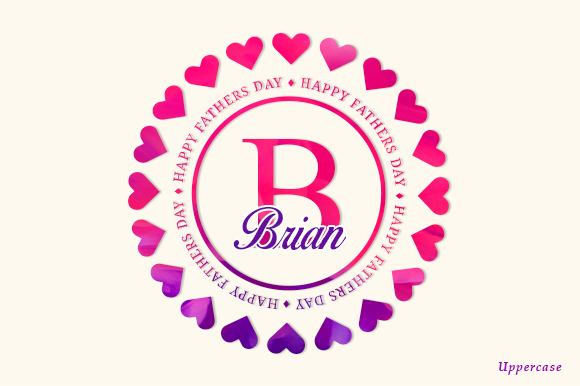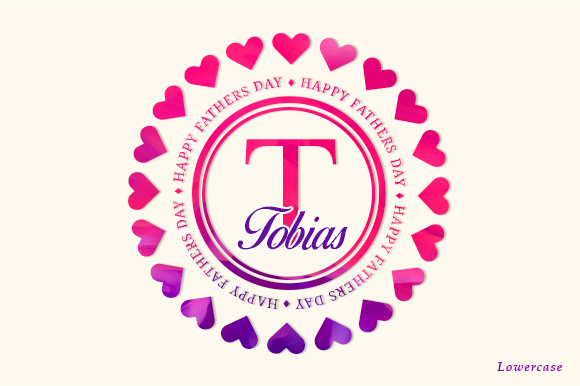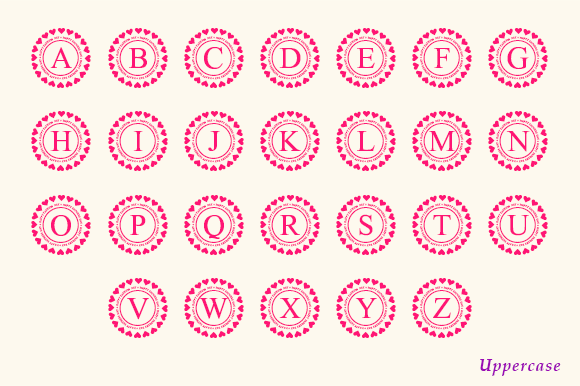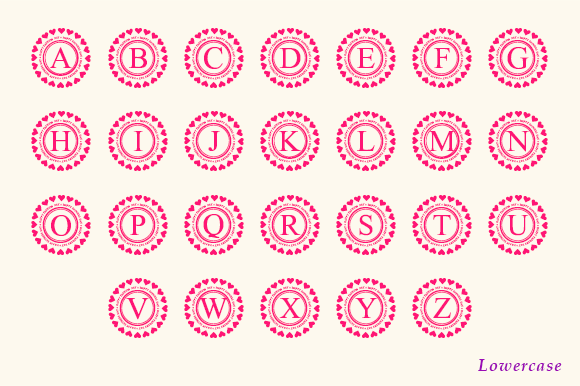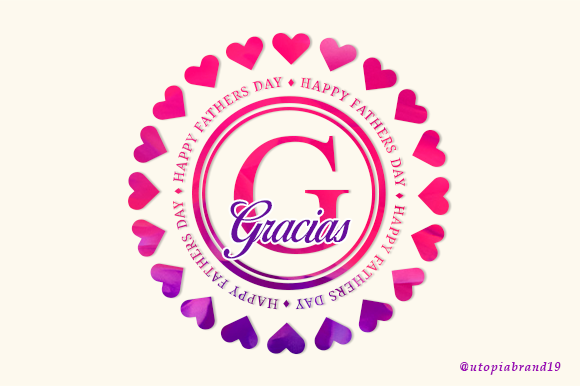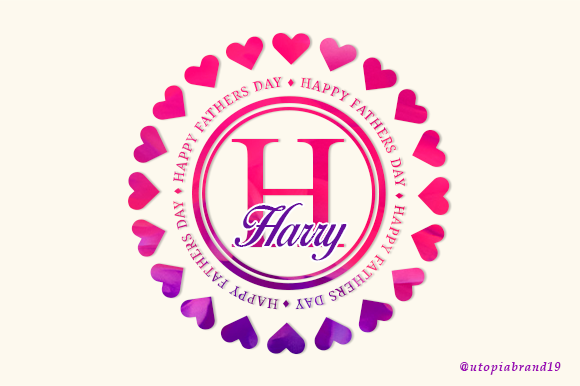
Happy Fathers Day Font: A Charming Decorative Font for Your Creative Projects
Are you looking for a special font to make your Father’s Day projects stand out? Look no further than the Happy Fathers Day Font! This charming decorative font is perfect for creating gorgeous invitations, beautiful stationary art, eye-catching social media posts, and cute greeting cards. With its authentic feel and versatility, you’ll fall in love with this font and want to use it for all your creative endeavors.
What Makes Happy Fathers Day Font So Special?
The Happy Fathers Day Font is a unique and decorative font that is specifically designed to add a personal touch to your projects. Its authentic feel and charming design make it perfect for creating handmade cards, invitations, and other craft projects. Whether you’re a designer, crafter, or DIY enthusiast, this font is sure to inspire your creativity and help you create something truly special.
Uses for Happy Fathers Day Font
The Happy Fathers Day Font is incredibly versatile and can be used for a wide range of projects, including:
• Invitations: Create custom invitations for Father’s Day parties, gatherings, or special events.
• Stationary Art: Design beautiful stationary art, such as greeting cards, gift tags, and journal pages.
• Social Media Posts: Add a personal touch to your social media posts and make them stand out with this charming font.
• Greeting Cards: Create custom greeting cards for Father’s Day, birthdays, or other special occasions.
Why Choose Happy Fathers Day Font?
There are many reasons why you should choose the Happy Fathers Day Font for your projects. Here are just a few:
• Unique Design: This font has a unique and charming design that will make your projects stand out.
• Authentic Feel: The font has an authentic feel that will add a personal touch to your projects.
• Versatility: The font is incredibly versatile and can be used for a wide range of projects.
Tips for Using Happy Fathers Day Font
Here are a few tips for using the Happy Fathers Day Font:
• Experiment with Different Sizes: Try out different font sizes to see what works best for your project.
• Pair with Other Fonts: Pair the Happy Fathers Day Font with other fonts to create a unique and interesting design.
• Use in Combination with Images: Use the font in combination with images to create a visually appealing design.
• Make it Personal: Add a personal touch to your projects by using the font to create custom names or messages.